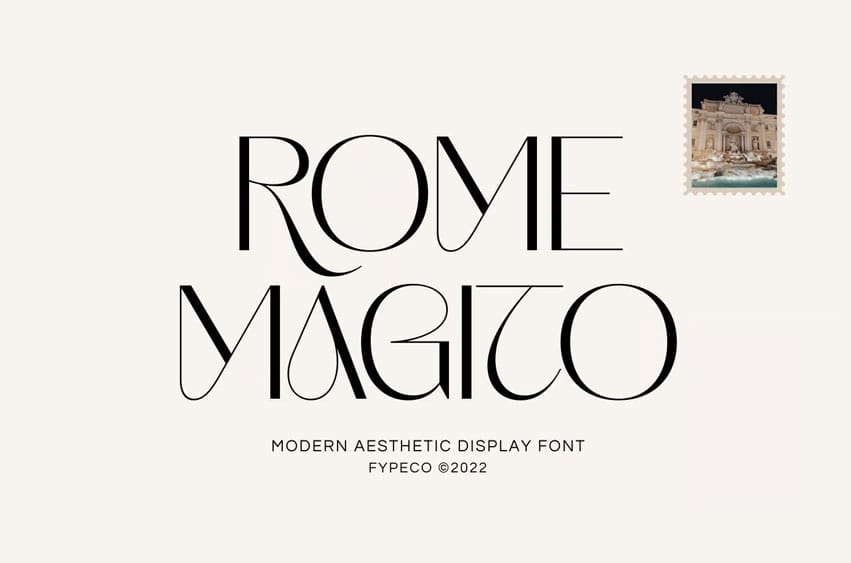
Rome Magito Font is an aesthetic, modern display font with alternatives and ligatures. Perfect for those needing a touch of elegance, style, classiness, beautiful thinness, and modernity for their design.